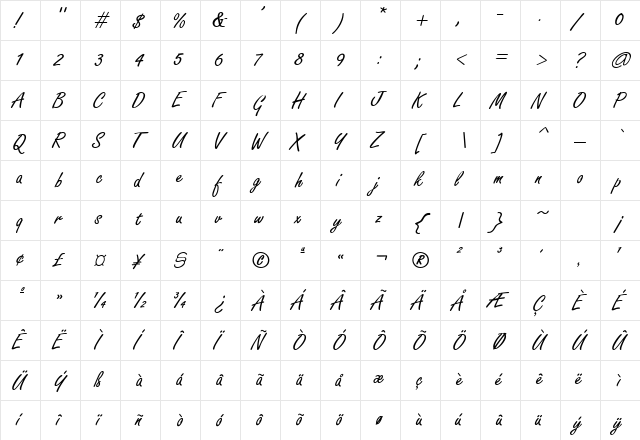
Carefree Normal Font Preview
Carefree Normal
Design Context for Carefree Typeface
Carefree is a composed and adaptable typeface that performs quietly and consistently across a wide range of design contexts.
Pro Tip: Use Carefree in both headline and body roles to test its range before committing to a single application.